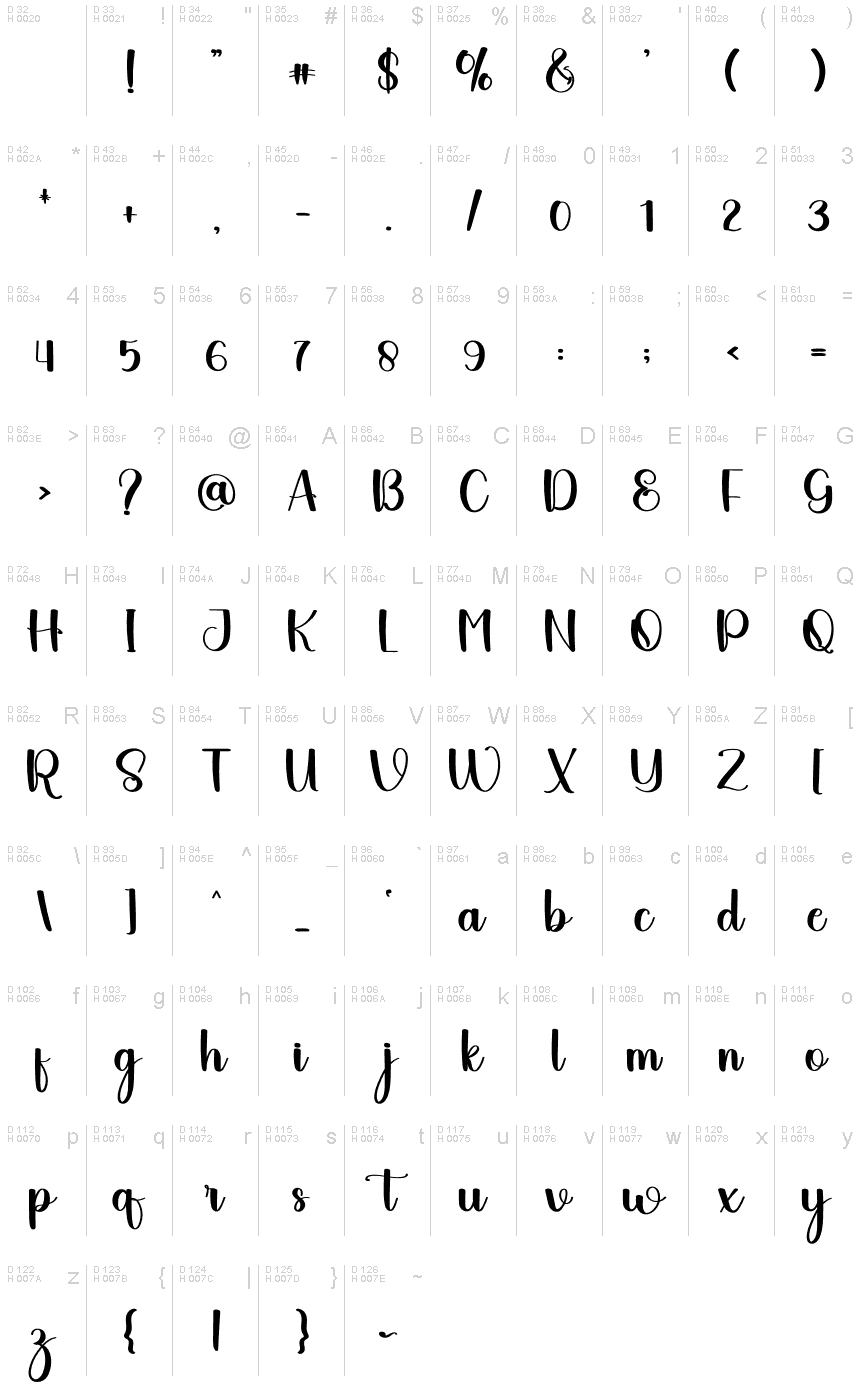
Babylone
Babylone, crafted by FreshtypeINK, is an exquisite handwritten font with a semi-light weight. Its delicate strokes and graceful curves give your text a touch of elegance and authenticity.
Perfect for wedding invitations, feminine blogs, and fashion magazines, Babylone adds a charming and personal feel to any project. Let this font effortlessly enhance your creative works with its unique blend of sophistication and playfulness.
Elevate your designs with Babylone's whimsical hand-drawn style that whispers beauty in every letter.